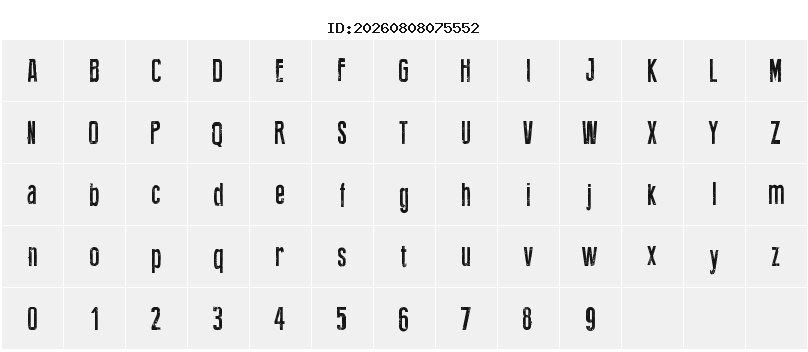
Press Feeling Eroded Preview
• Font Name: Press Feeling Eroded
• Full Font Name: Press Feeling Eroded
• Version: Version 1.00 January 13, 2014, initial release
• Designer: Typeface © Galdino Otten. 2013. All Rights Reserved
• Manufacturer: Galdino Otten
About Press Feeling Eroded.ttf
Press Feeling Eroded.ttf is a modern, elegant sans-serif font designed for ultimate readability and visual harmony. Perfect for branding, headlines, web design, and print materials.